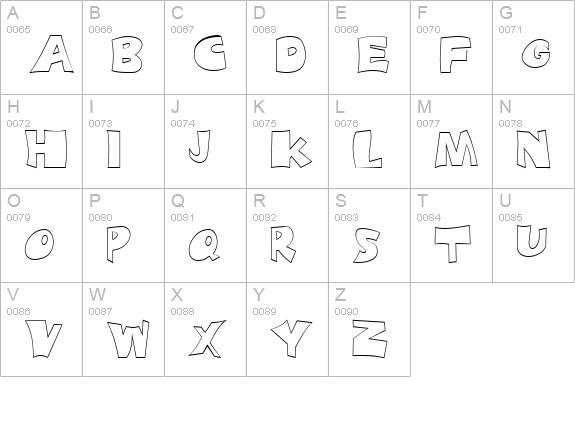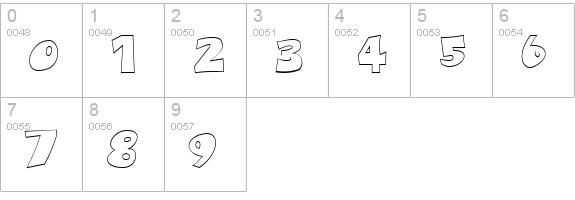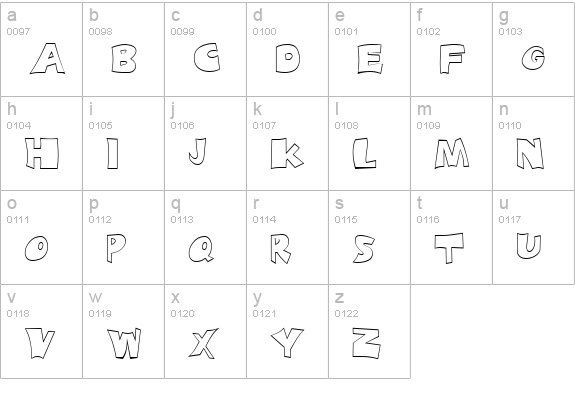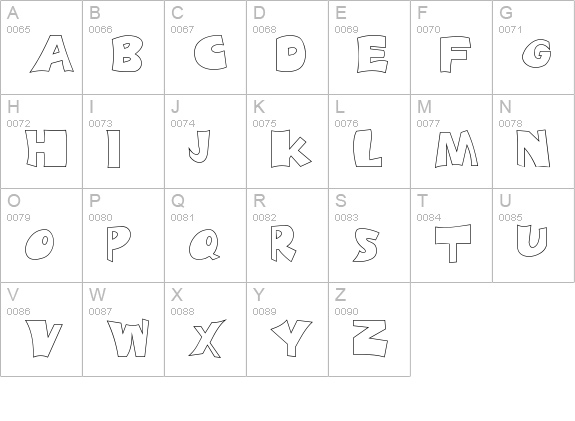
HattrickOpen Font Details
HattrickOpen is a versatile and stylish font that exudes a sense of modernity and sophistication. With its clean lines and contemporary design, this font is perfect for a wide range of projects, from branding to graphic design. Its sleek and elegant appearance adds a touch of professionalism to any text or design element. What sets HattrickOpen apart is that it is completely free to use, making it an ideal choice for designers and creators looking for high-quality fonts without breaking the bank. This font is freely available to download at FontsMarket.com, where you can easily access it and incorporate it into your projects with ease. Whether you're working on a logo, website, or any other creative venture, HattrickOpen is sure to give your work a polished and refined look. Download it today and elevate your designs with this stunning and versatile font.